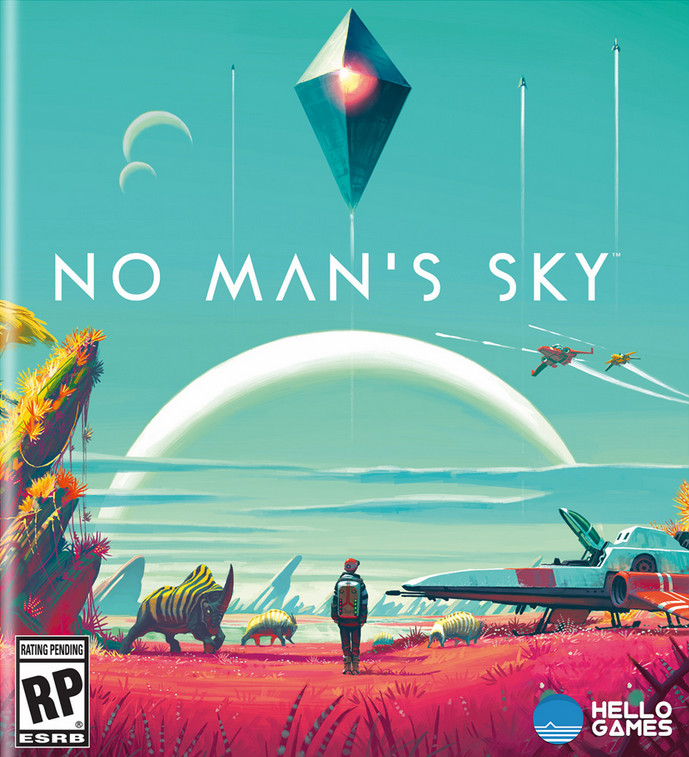
No Man's Sky Font
The font used for the video game's logo is called Geo NMS, a geometric sans serif created by altering a few letters in the Manfred Klein font Geo Sans Light. The font is free for both personal and commercial use.